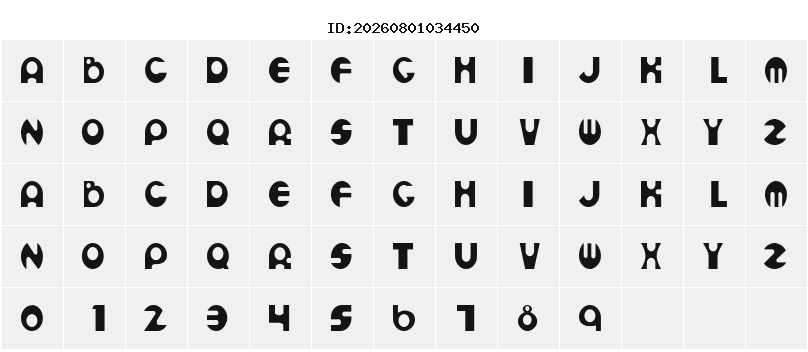
Lady 1 Preview
• Font Name: Lady 1
• Full Font Name: Lady 1
About Lady 1.ttf
Lady 1.ttf is a modern, elegant sans-serif font designed for ultimate readability and visual harmony. Perfect for branding, headlines, web design, and print materials.